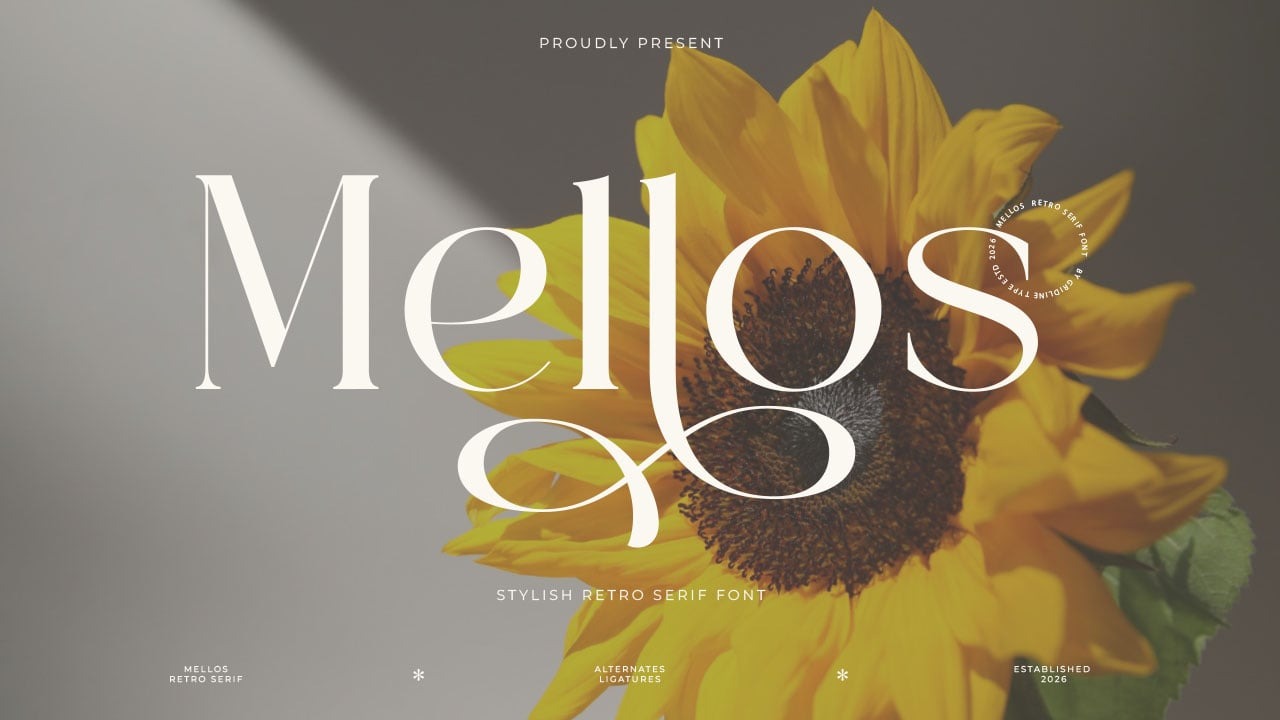
Mellos – Elegant Serif Font
Mellos – Elegant Serif Font is a distinctive and expressive font crafted to bring personality, structure, and creative energy into your projects. Mellos the elegant, beautiful, and modern Serif. With its modern and minimalist look, Mellos brings a luxurious, classy, and clean style to your projects such as websites, modern logos, brand identities, social media quotes, wedding stationery, magazines, and more!
Mellos features unique and classy capital letters A to Z and also comes with unique alternates making Mellos a beautiful font that can be customized for various projects and jobs you want.
Mellos is perfect for: logos, brands, wedding invitations, business cards, greeting cards, posters, magazines, social media, agenda prints, and websites.